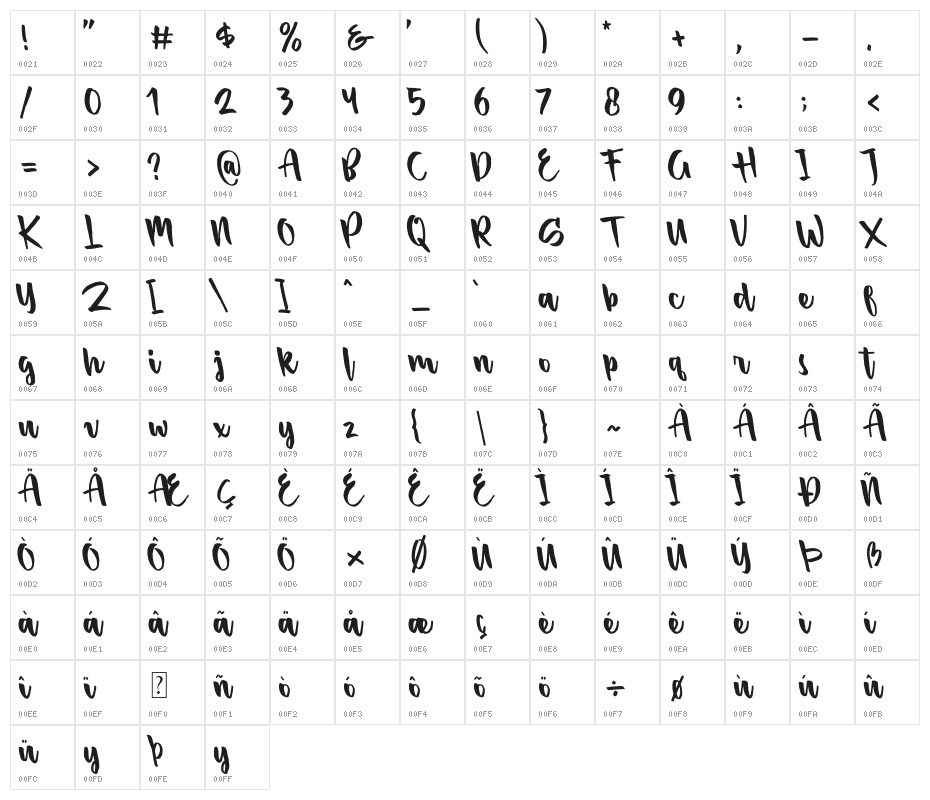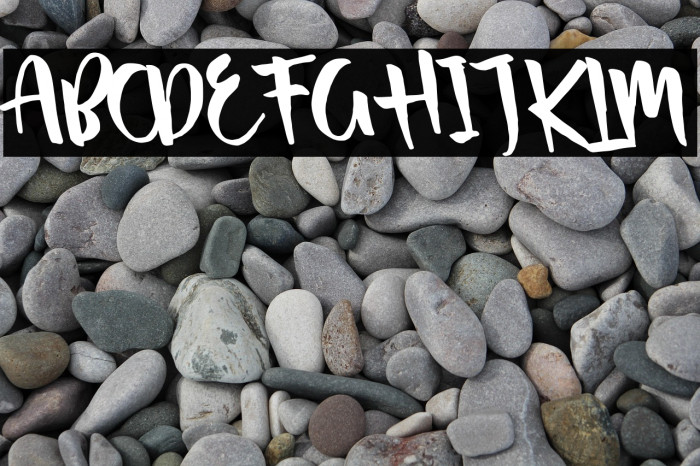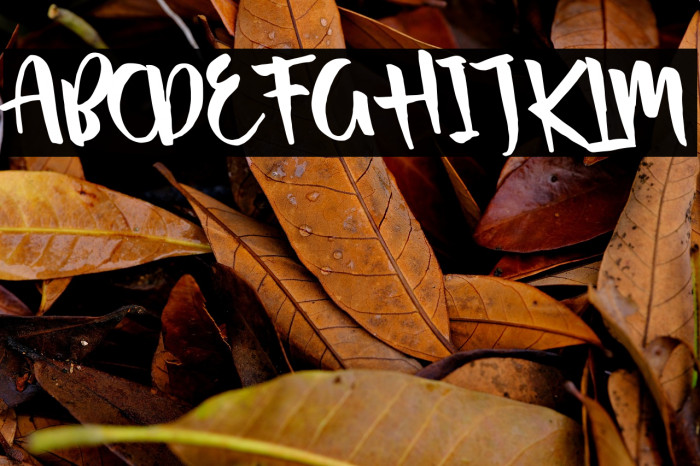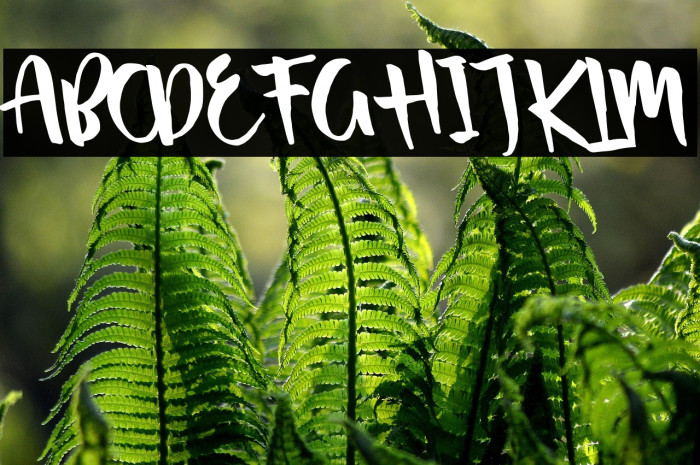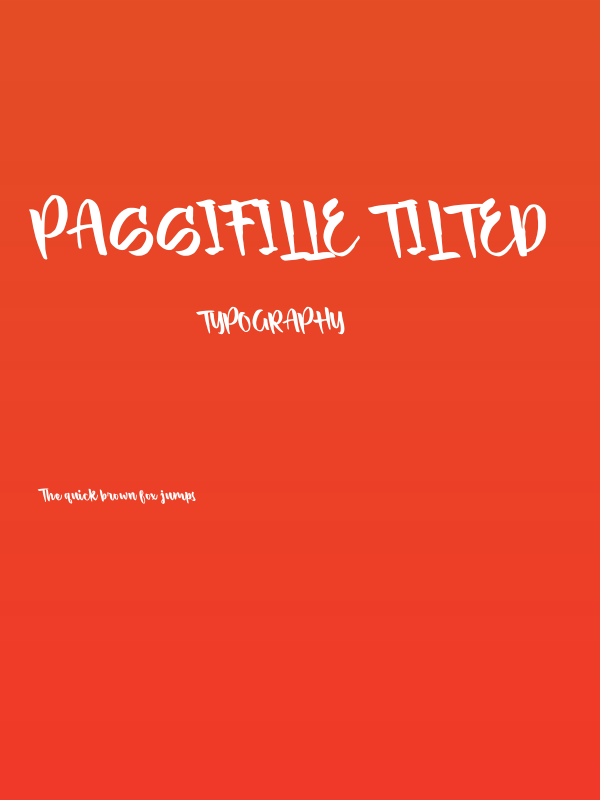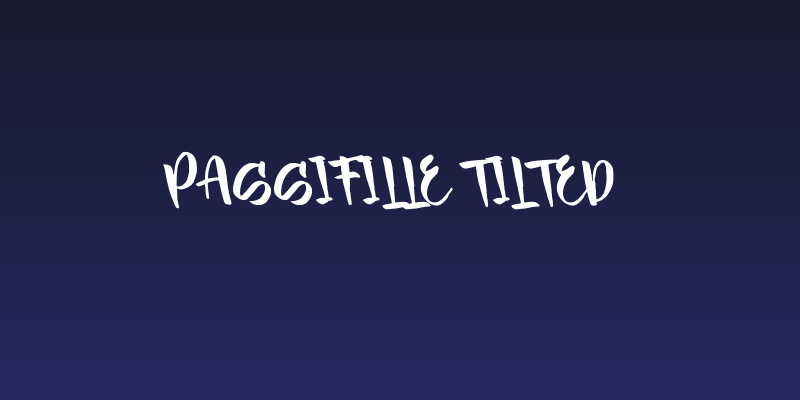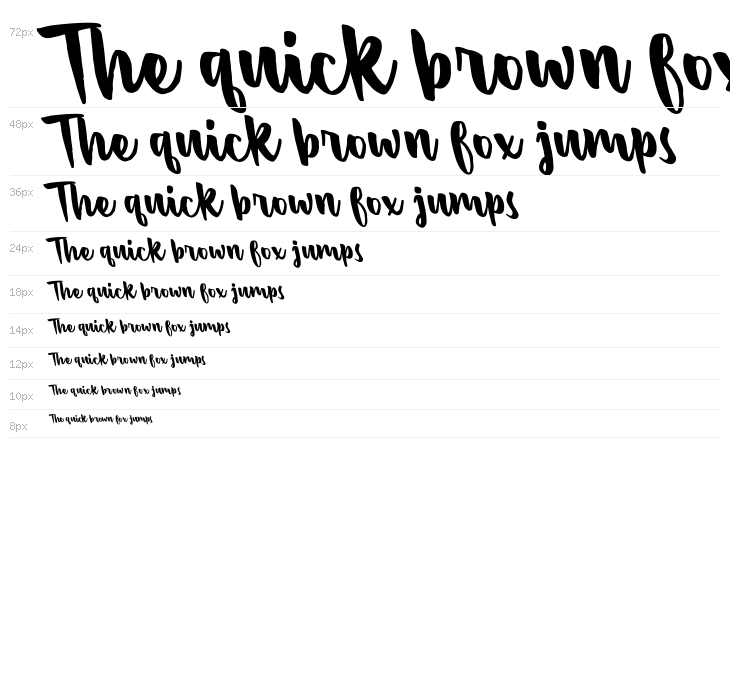
Passifille Tilted Font
Passifille Tilted Description
This font features a bold, handwritten style with a playful and energetic appearance. The letters are slightly tilted, adding a dynamic and informal touch. The strokes are thick and consistent, giving it a strong presence. The characters are well-spaced, maintaining readability while conveying a sense of movement. The uppercase and lowercase letters are distinct yet harmonious, and the numerals and special characters complement the overall style. This font is perfect for projects that require a personal, creative, and lively feel.
| Proposed Projects | Ideal for greeting cards, invitations, posters, and branding materials that aim to convey a personal and energetic vibe. |